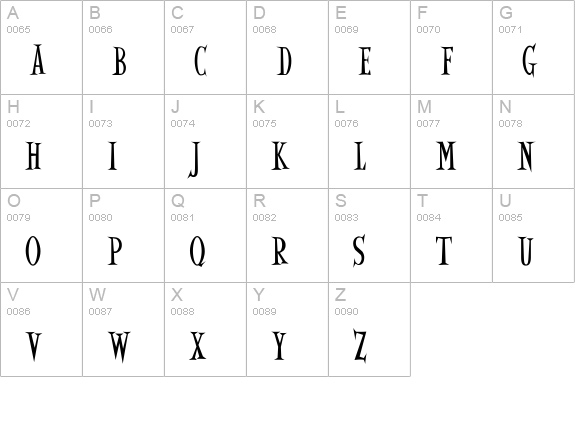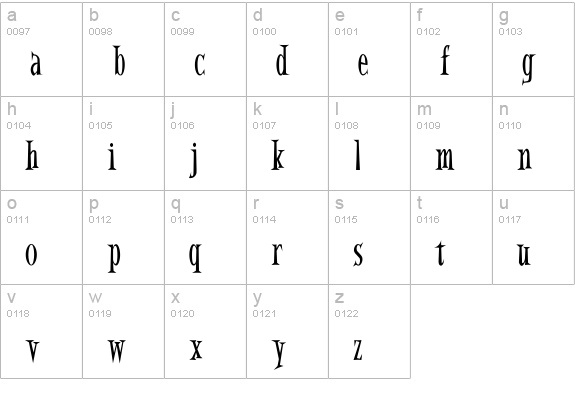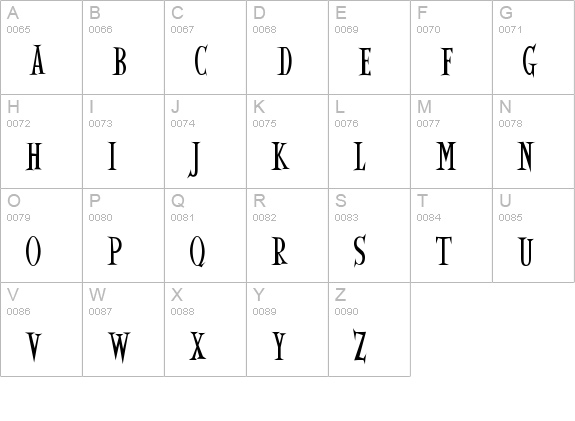
EddieFisher Font Details
Introducing EddieFisher, a captivating and versatile font that will instantly elevate your design projects to new heights. With its sleek and sophisticated letterforms, EddieFisher exudes a timeless elegance that is both modern and classic. This font boasts a unique combination of clean lines and subtle curves, creating a harmonious balance that is visually pleasing to the eye. Its refined strokes give each character a sense of grace and fluidity, making it perfect for a wide range of design applications. Whether you're designing a logo, crafting a headline, or creating a stunning invitation, EddieFisher is the perfect choice to make your text stand out. Its versatility allows it to effortlessly adapt to various styles and themes, making it suitable for both professional and personal projects. But the best part? EddieFisher is completely free! Yes, you read that right. This exceptional font is freely available to download at FontsMarket.com, allowing you to bring your design visions to life without breaking the bank. So why wait? Elevate your designs with the timeless elegance of EddieFisher today. Download this remarkable font for free at FontsMarket.com and unleash your creativity.